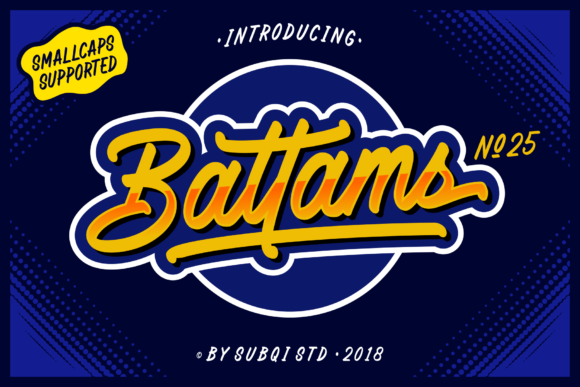
Step into the world of Battams Font, where elegance meets boldness in a striking script font like no other. Crafted by the esteemed Subqi Std., Battams is a font that commands attention, leaving an indelible mark on your designs.
With its unwavering weight and captivating oval tip line, Battams exudes a sense of confidence and sophistication. Its presence is undeniable, making it the perfect choice for projects that demand impact and personality.
Unleash your creativity and embark on a typographic journey with Battams. Let your imagination soar as you craft logos, posters, invitations, branding materials, and social media graphics that captivate and inspire.
Battams is not just a font; it's an expression of individuality, a rebellion against the mundane. It empowers you to break free from the ordinary, to create designs that resonate with your unique style and vision.
Don't settle for the commonplace when you can have the extraordinary. Embrace Battams Font, and let your designs shine with a brilliance that leaves a lasting impression.